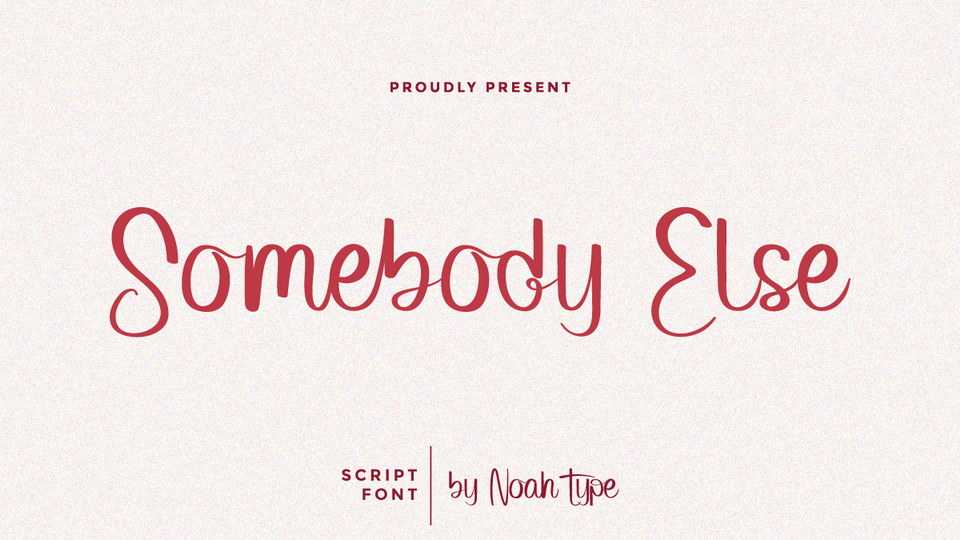
Download Somebody Else font, a sophisticated handwriting typeface. Somebody Else is perfect to create a natural handwriting look that will add more beauty and aesthetics for your extraordinary project.
Designer: Noah Type